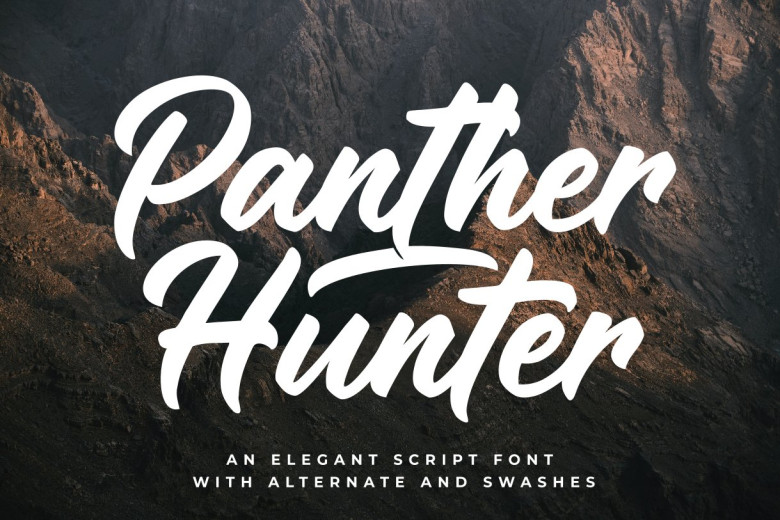
Panther Hunter Font
Panther Hunter features an elegant, hand-lettered font style. Perfect for logotypes, packaging designs, print titles, Tshirt designs and food design projects as well as any similar endeavors, this elegant font includes over 70 alternates including some natural ligatures to achieve its elegant appearance and feel.
Panther Hunter Brush Script Font